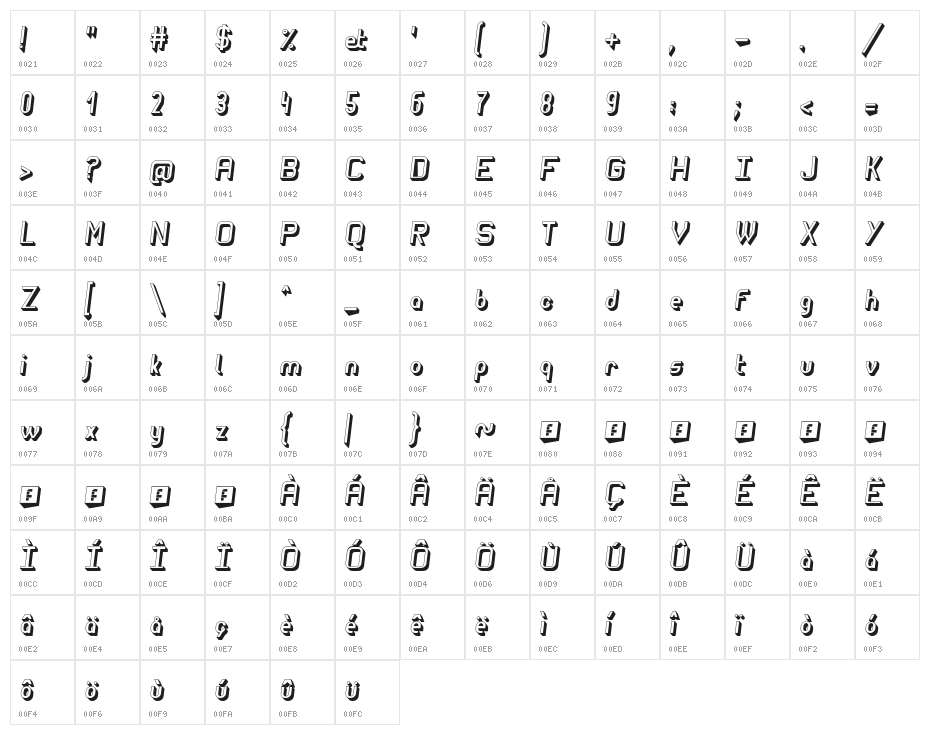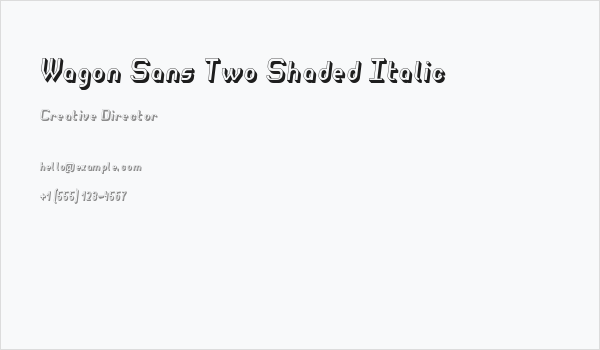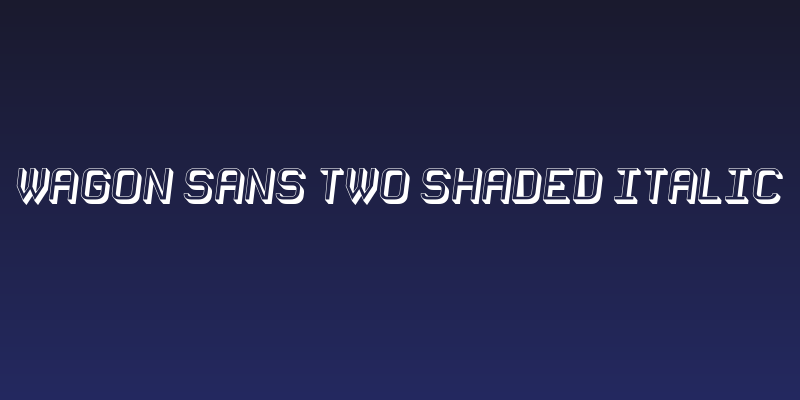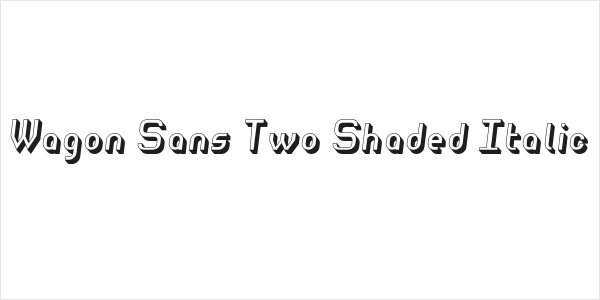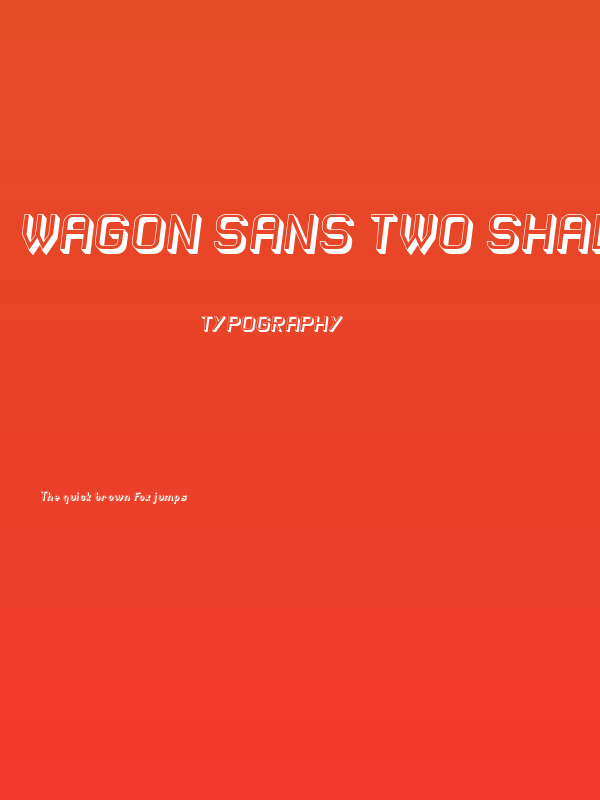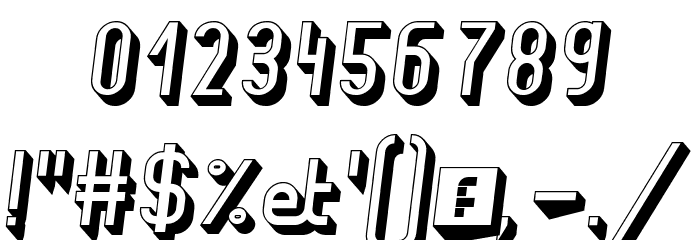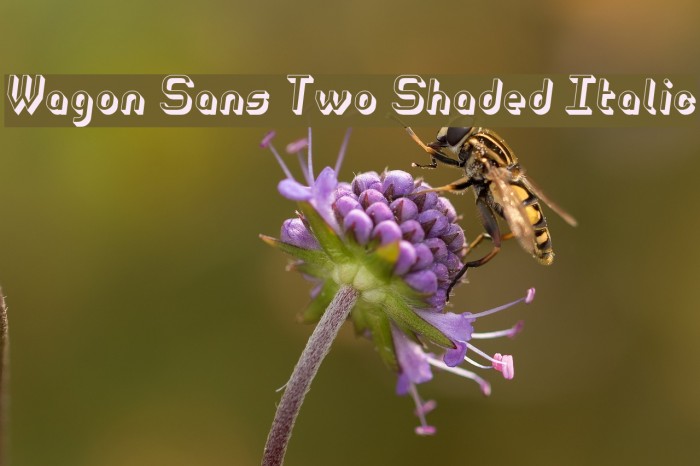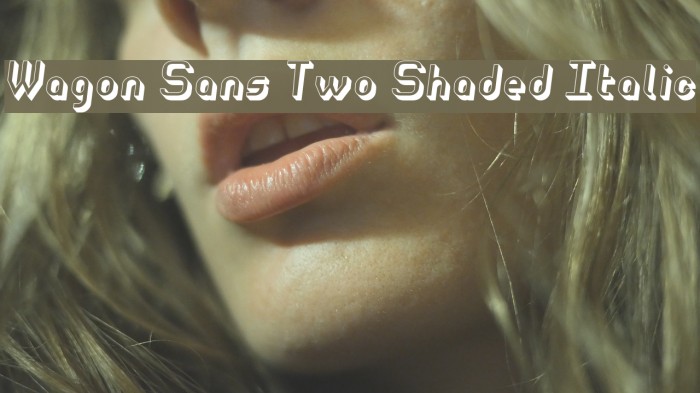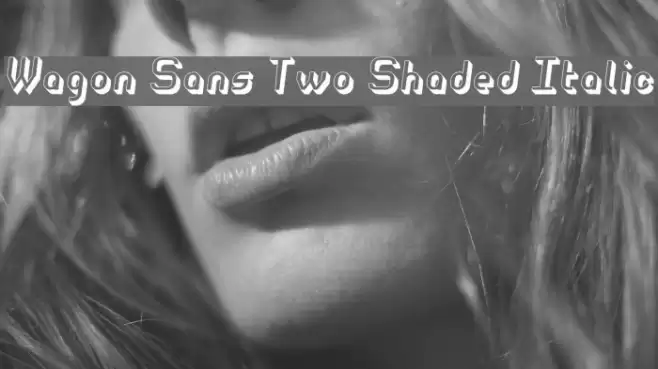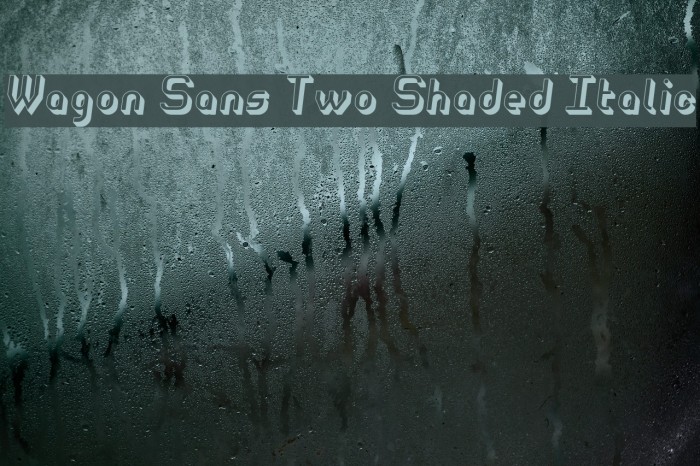
Wagon Sans Two Shaded Italic Font
Wagon Sans Two Shaded Italic Description
This font features a bold, three-dimensional appearance with a distinct shadow effect, giving it a dynamic and eye-catching look. The characters are italicized, adding a sense of motion and fluidity. Each letter is crafted with clean, geometric lines, and the shading provides a sense of depth and volume. The uppercase and lowercase letters maintain a consistent style, with rounded edges and a slight slant. The numerals and special characters are designed to match the overall aesthetic, ensuring uniformity across all elements. This font is ideal for projects that require a modern and playful touch, while still maintaining readability.